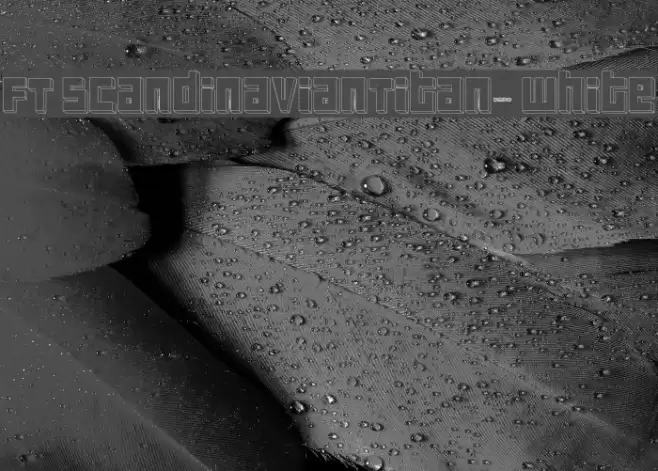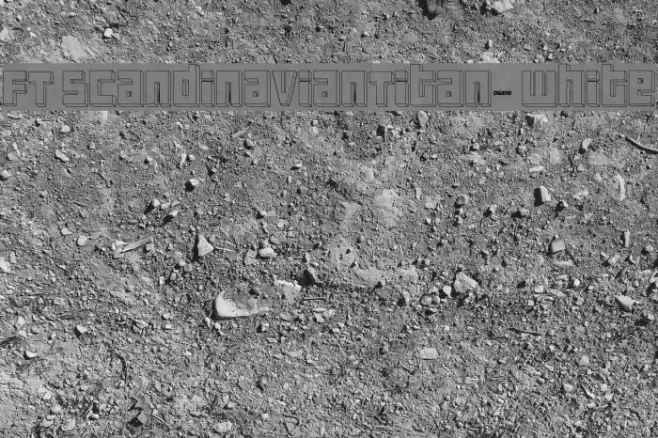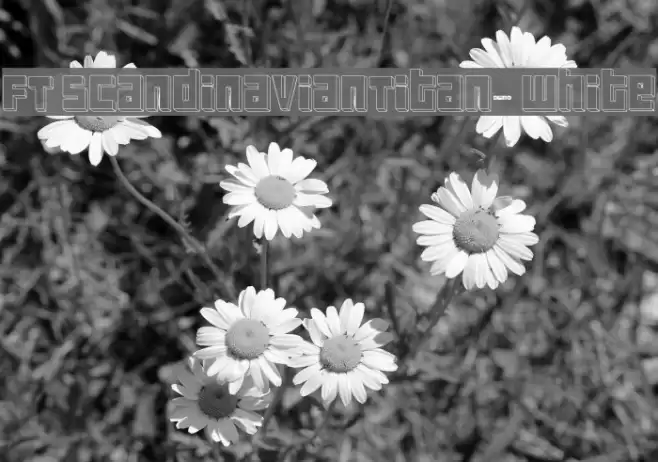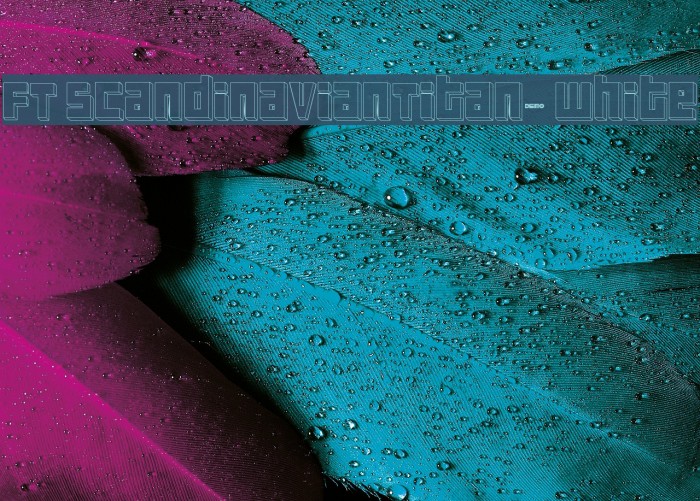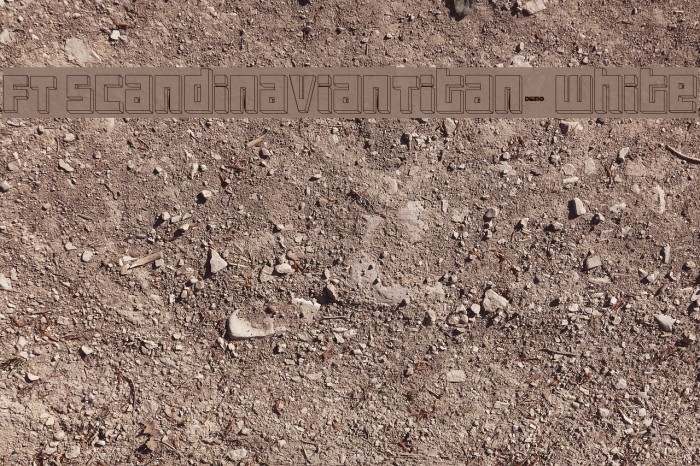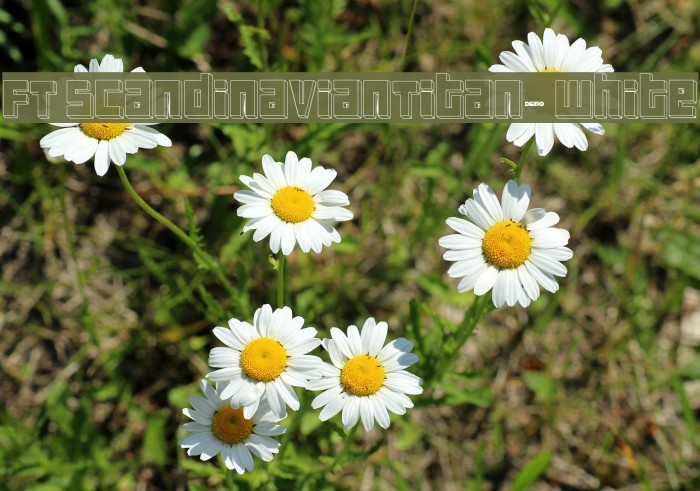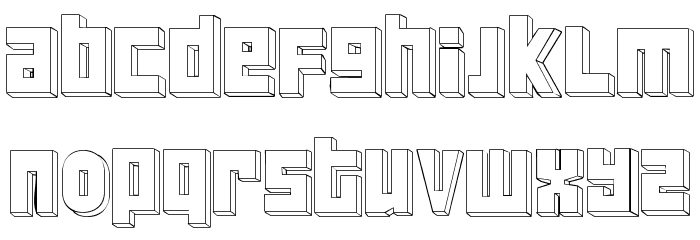
FT ScandinavianTitan2 White Font
FT ScandinavianTitan2 White Description
This font features a bold, three-dimensional design with a distinct outline that gives each character a striking, block-like appearance. The uppercase and lowercase letters maintain a uniform geometric structure, emphasizing straight lines and sharp angles. The font's unique style is reminiscent of architectural elements, making it stand out with its strong visual impact. The characters are evenly spaced, ensuring readability while maintaining a cohesive look. This font's boldness and dimensionality make it ideal for projects that require a modern and eye-catching display.
A bold, three-dimensional font with a geometric, architectural style from Crazy fonts.
- Proposed Projects: Ideal for posters, headlines, logos, and branding materials that require a modern and impactful look.